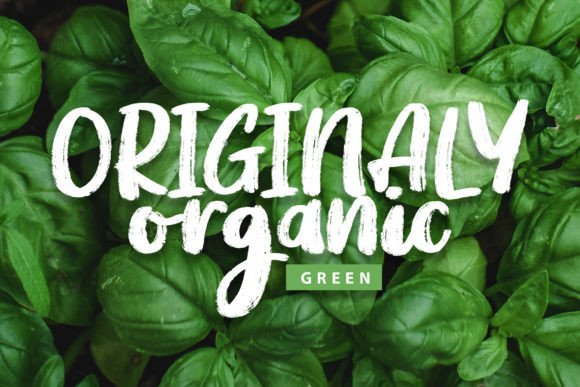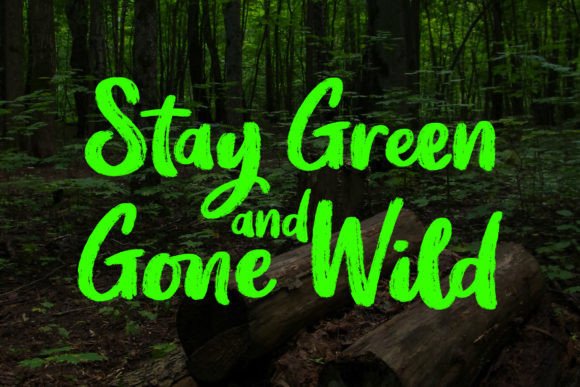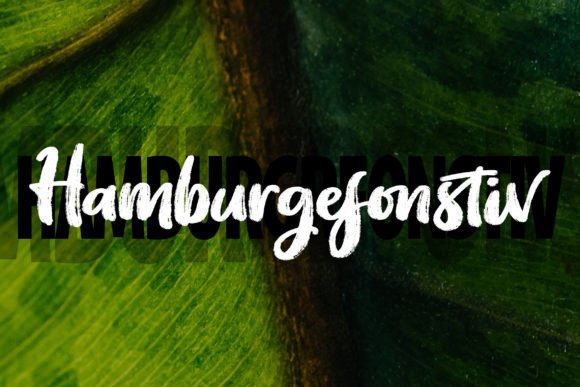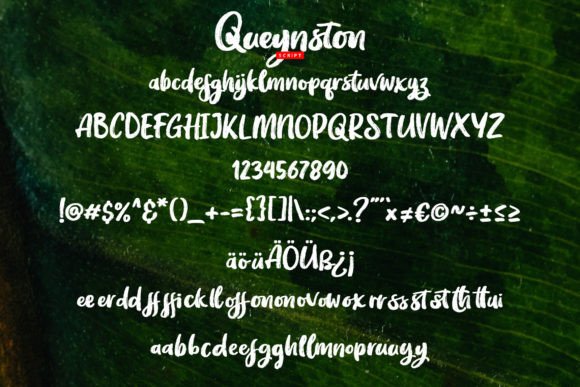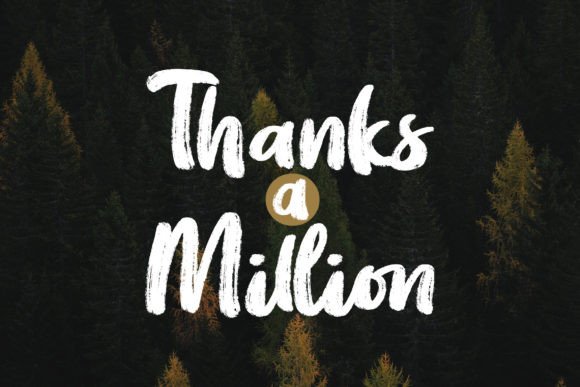
Introduction to Queynston Font
Queynston is a stylish and fashionable handwritten brush font.
Its textured appearance makes it perfect for all your projects that need a cool, urban vibe This font is PUA encoded which means you can access all of the amazing glyphs and ligatures with ease.
Key Features of Queynston Font